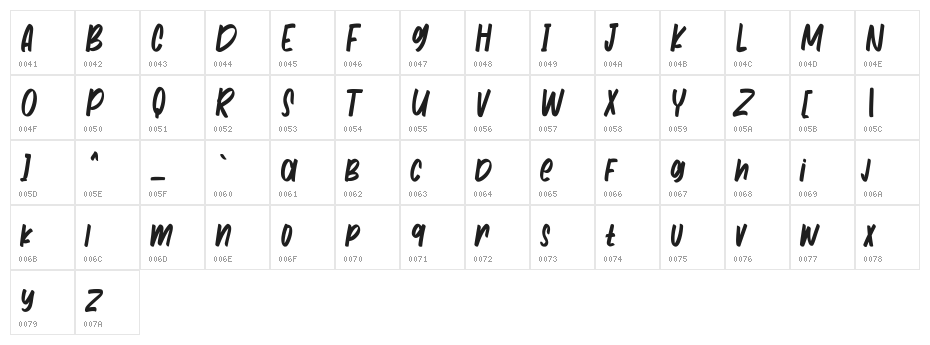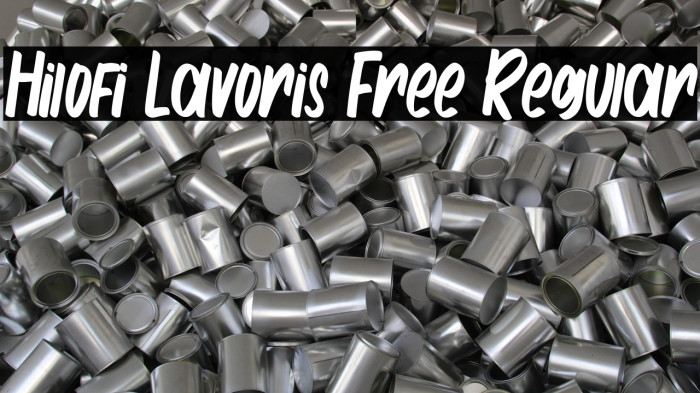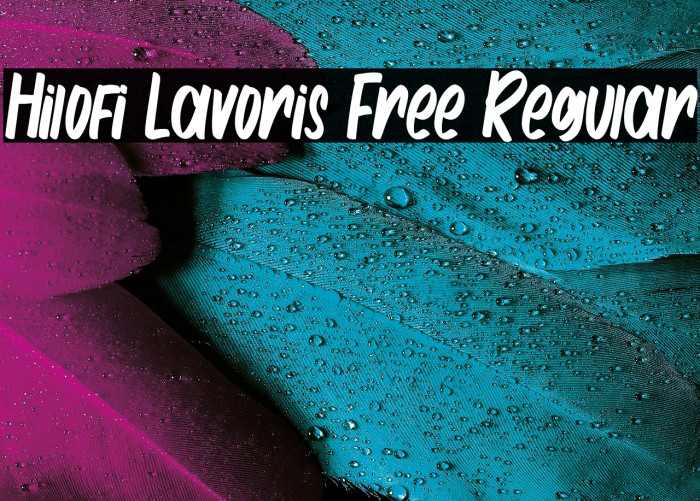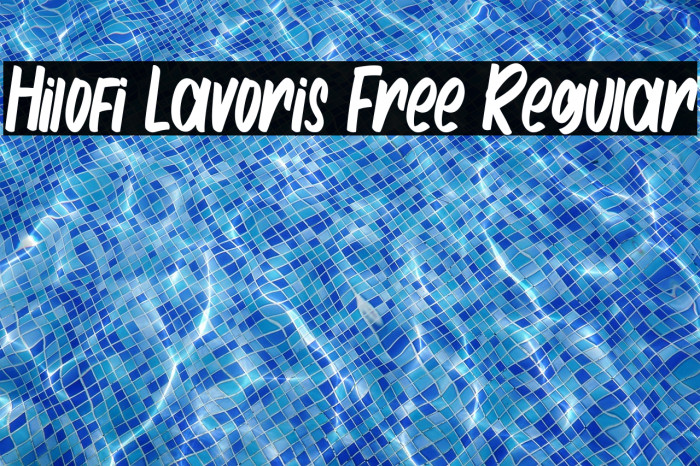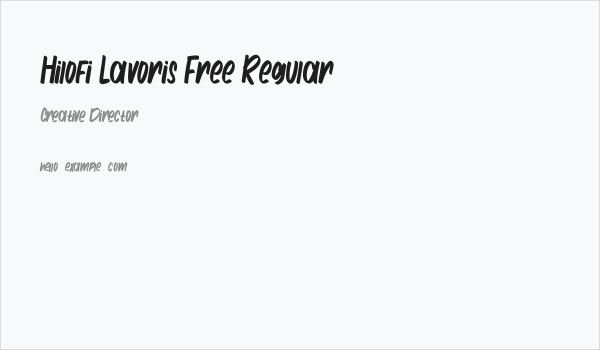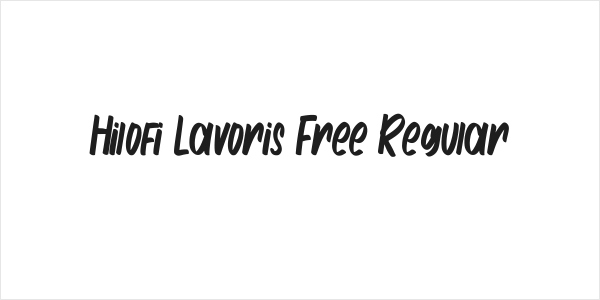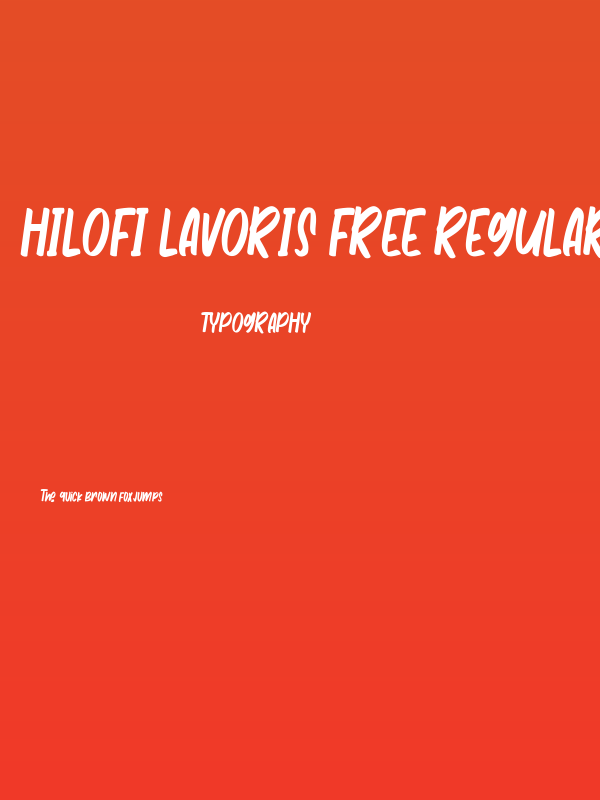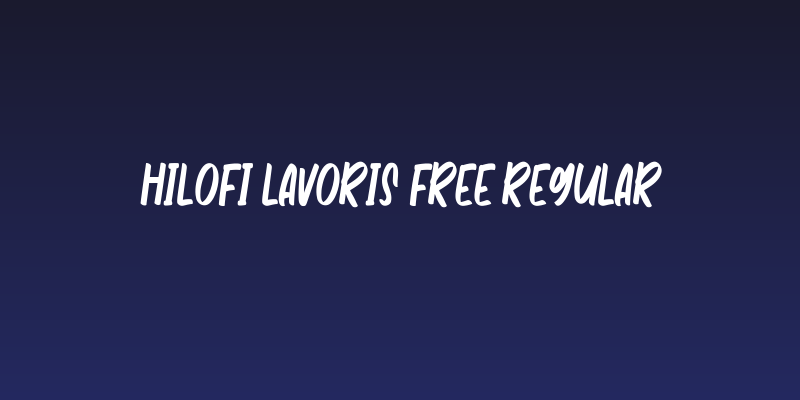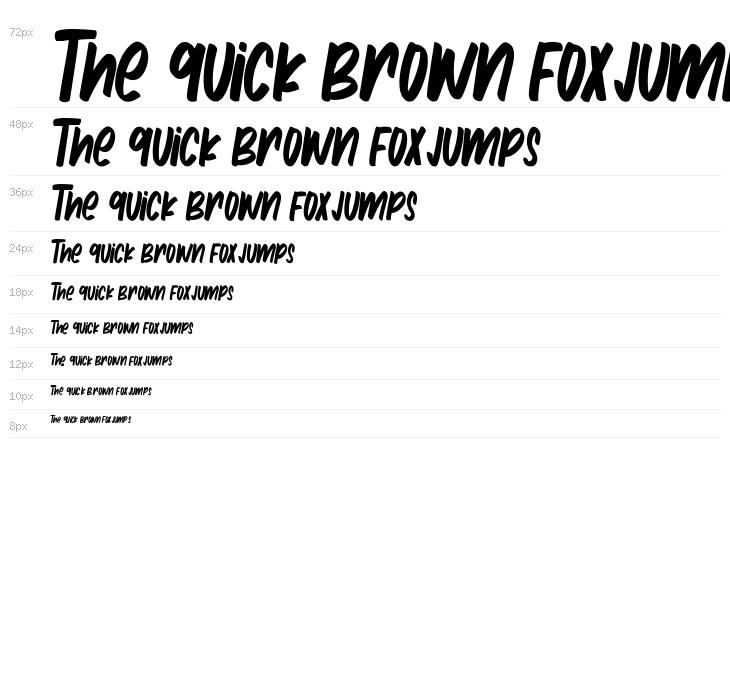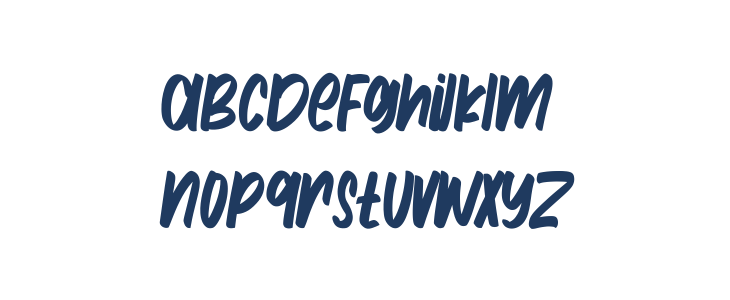
Hilofi Lavoris Free Regular Font
Hilofi Lavoris Free Regular Description
This font features a bold and energetic handwritten style, characterized by its thick strokes and dynamic flow. The letters are slightly slanted, giving a sense of movement and spontaneity. The uppercase and lowercase letters maintain a consistent style, with rounded edges and a playful appearance. The numbers and special characters are crafted to match the overall aesthetic, making them suitable for creative and informal designs. The font's boldness and unique style make it stand out, perfect for projects that require a personal touch.
| Proposed Projects | Ideal for branding, posters, social media graphics, and any project that benefits from a personal, creative touch. |